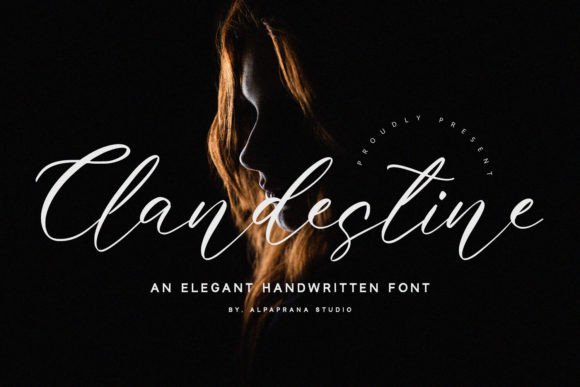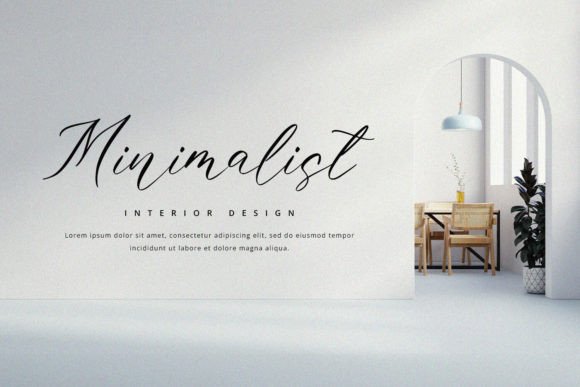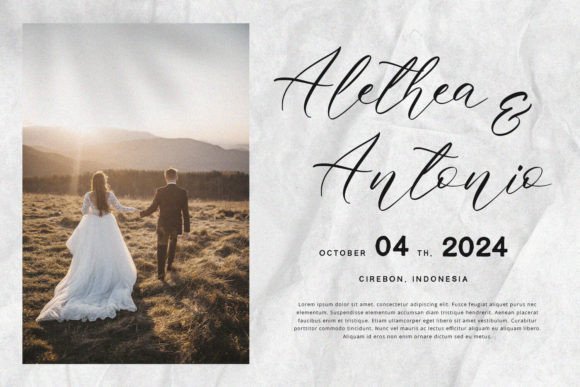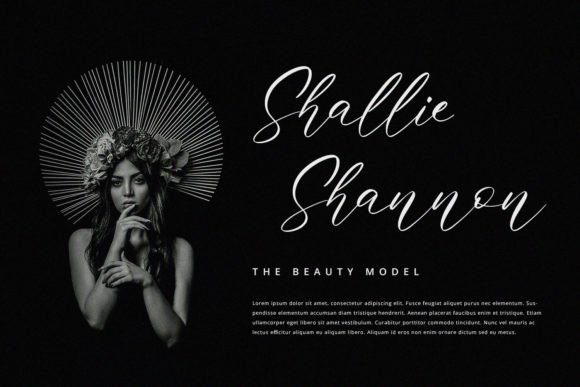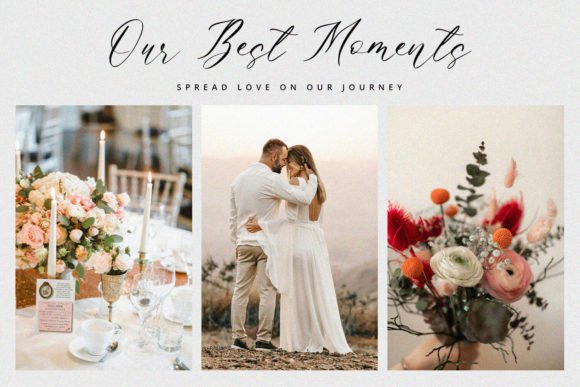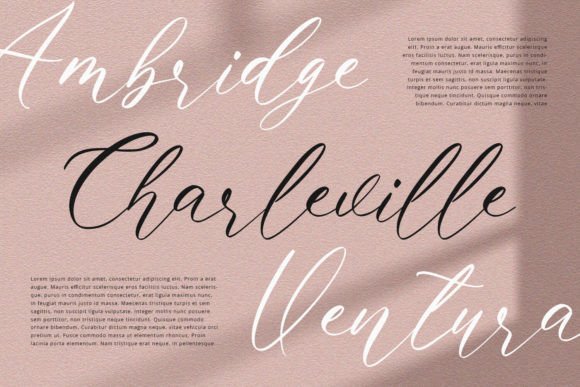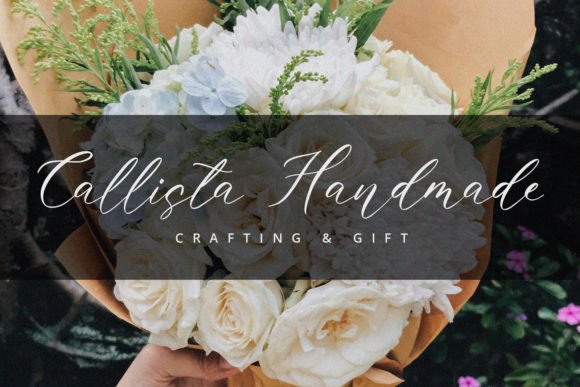
Uncover the Secrets of Style with Clandestine Font
As designers, we’ve all been there – staring at a blank page, waiting for the perfect font to bring our vision to life. The search is over, and the secret’s out. Introducing Clandestine, a script font that embodies the essence of mystery and elegance. Its intricate swirls and exquisite letterforms transport you to a world of sophistication, perfect for luxurious branding, upscale invitations, and editorial design.
Clandestine Font is more than just a font – it’s a key to unlocking the secrets of style. With its unique blend of allure and intrigue, it’s the perfect tool for designers seeking to elevate their work to new heights. Whether you’re working on a high-end project or simply looking to add a touch of sophistication to your designs, Clandestine Font is an invaluable asset to have in your toolkit.
Clandestine Font Key Features
- Unique Characteristics: The Clandestine Font features a distinctive, hand-drawn design with intricate details and subtle texture, giving it a unique and sophisticated appearance.
Clandestine Font Review
Clandestine Font is a unique and intriguing typeface that offers a lot to those looking for something with a touch of mystery. ✨ I love how the font seems to shift and change depending on the context in which it’s used. It’s perfect for creating a sense of tension or intrigue in your design work.
- ✨ The font’s adaptability to different contexts is a major strength, making it versatile and easy to use.
- ✨ The unique character set and intricate details make it stand out from more traditional fonts.
- ✨ Clandestine Font is perfect for adding a touch of sophistication and elegance to your designs.
Limitsations:
- ⚠️ The font can be difficult to read at small sizes, making it less suitable for body text.
- ⚠️ The intricate details can be overwhelming if used excessively, so be sure to use it sparingly.
- ⚠️ Limited language support may be a concern for designers working with non-English languages.
Overall, Clandestine Font is a solid choice for designers looking to add some mystery and intrigue to their work. While it may have its limitations, the unique character set and adaptability make it a valuable addition to any design toolkit.
Tips for Getting the Most Out of Clandestine Font
Use Clandestine Font to create a mysterious or vintage feel in your designs.
Pair it with bold or italic fonts for added emphasis.
Use Clandestine Font for:
Book covers and book titles.
Movie posters and title cards.
Branding and logo design.